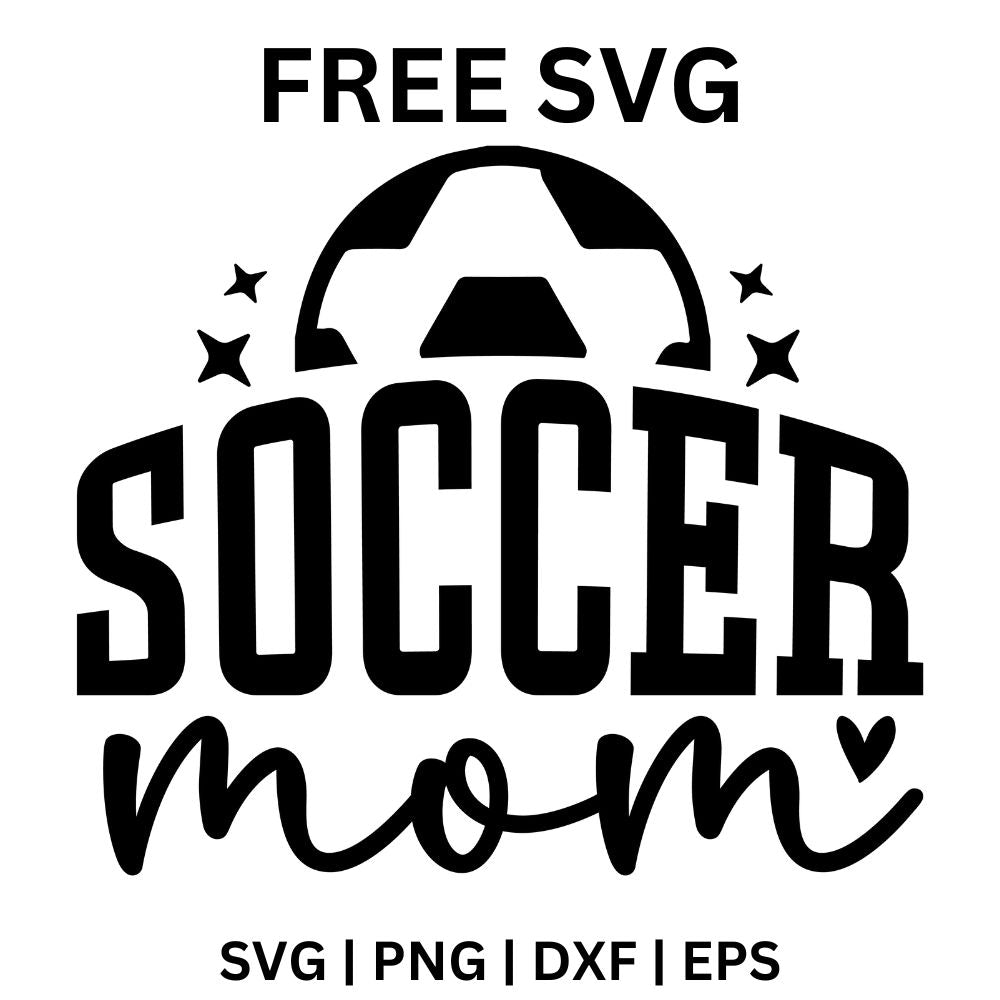
Soccer Mom SVG Free | All-Caps Athletic Font with Stars for Cricut & Silhouette
Download our all-caps athletic Soccer Mom SVG complete with star accents and strong typography – great for creating bold, competitive designs. Keywords: all caps svg, athletic mom, soccer mom cut file, sporty stars svg, varsity font svg, team mom design, bold sports svg. Formats: SVG, PNG, EPS, DXF. Project Ideas: hoodies, banners, sports team merch. Compatible With: Cricut, Silhouette Cameo, Brother ScanNCut.